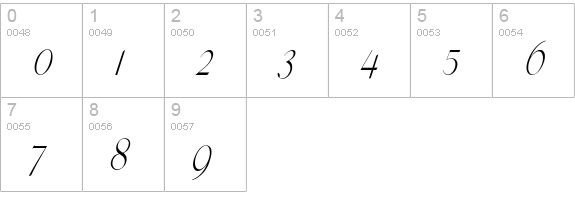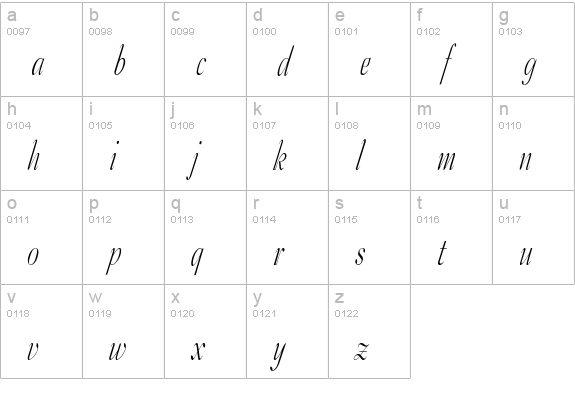
Tango Condensed Italic Font Details
Tango Condensed Italic is a distinctive, condensed-width, italic variant in the Tango typeface family \xE2\x80\x94 well suited to design and typography projects.
Tango Condensed Italic font exudes elegance and sophistication, making it the perfect choice for any project that requires a touch of finesse. Its sleek and streamlined design captures the essence of modernity, while its italicized slant adds a touch of dynamic flair. The Tango Condensed Italic font is meticulously crafted to enhance readability and legibility, ensuring that your message is conveyed with clarity and precision. Its condensed form allows for efficient use of space, making it ideal for designs that require a compact yet impactful typography. This font offers a wide range of applications, from editorial designs to branding, packaging, and advertising materials. Its versatility allows it to effortlessly adapt to various design styles and themes, making it a valuable asset in any designer's toolbox. One of the most remarkable features of the Tango Condensed Italic font is that it is freely available to download at FontsMarket.com. This means that you can access this exceptional typeface without any cost, enabling you to elevate your designs without breaking the bank. Whether you're a professional graphic designer or a creative enthusiast, Tango Condensed Italic font is a must-have addition to your collection. Its timeless appeal and flexibility will undoubtedly enhance the visual impact of your projects, leaving a lasting impression on your audience. Download the Tango Condensed Italic font today from FontsMarket.com and unlock a world of design possibilities. Embrace the power of this exceptional typeface and let your creativity soar to new heights.